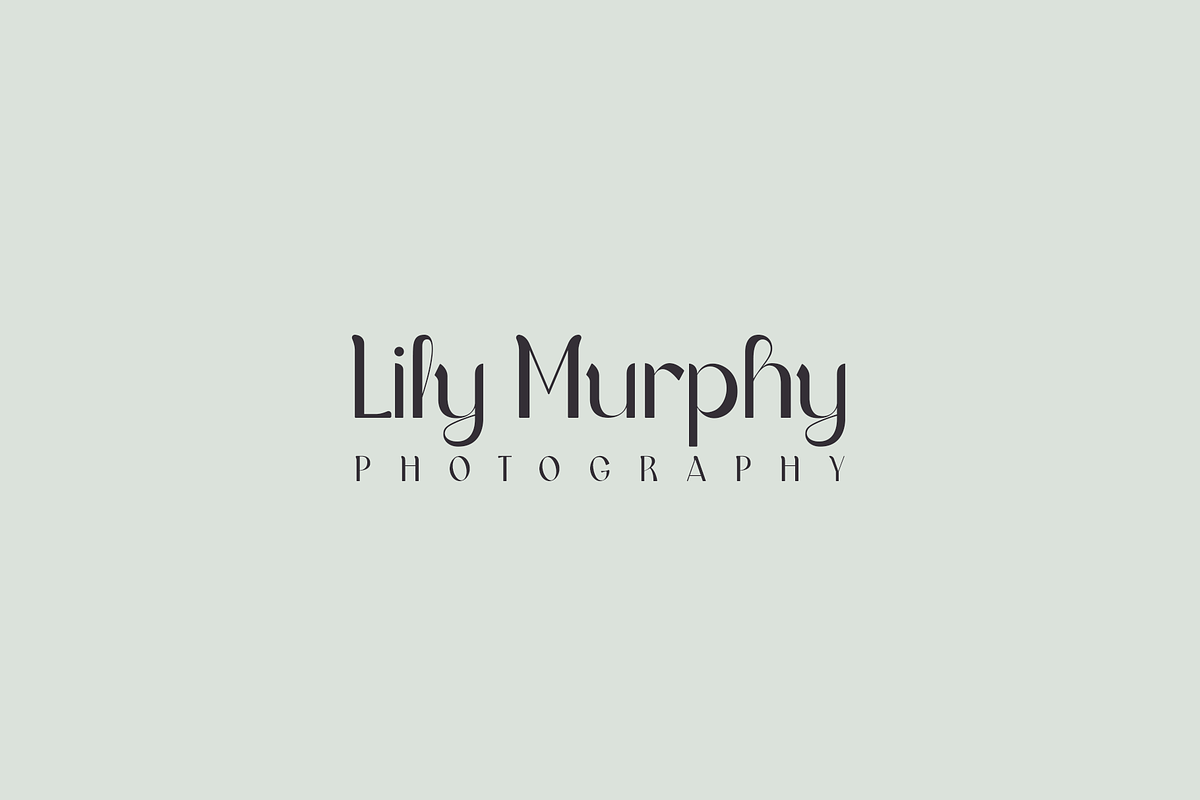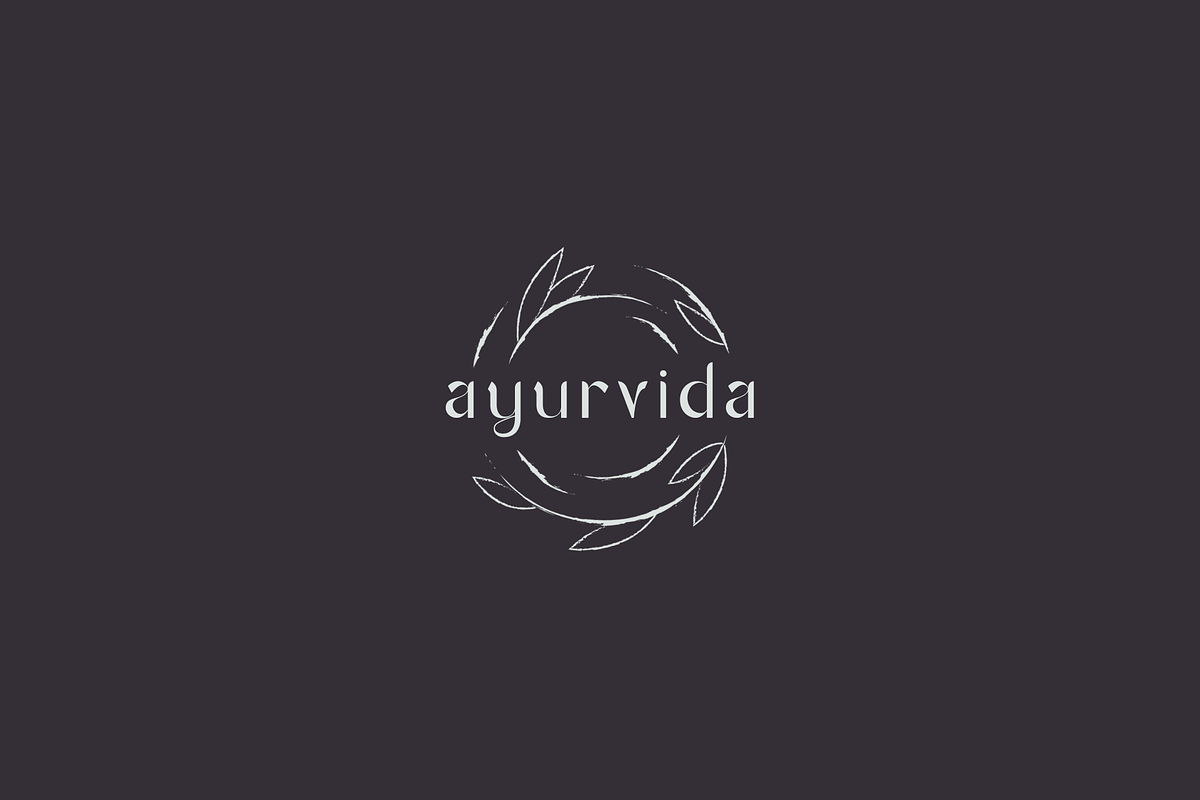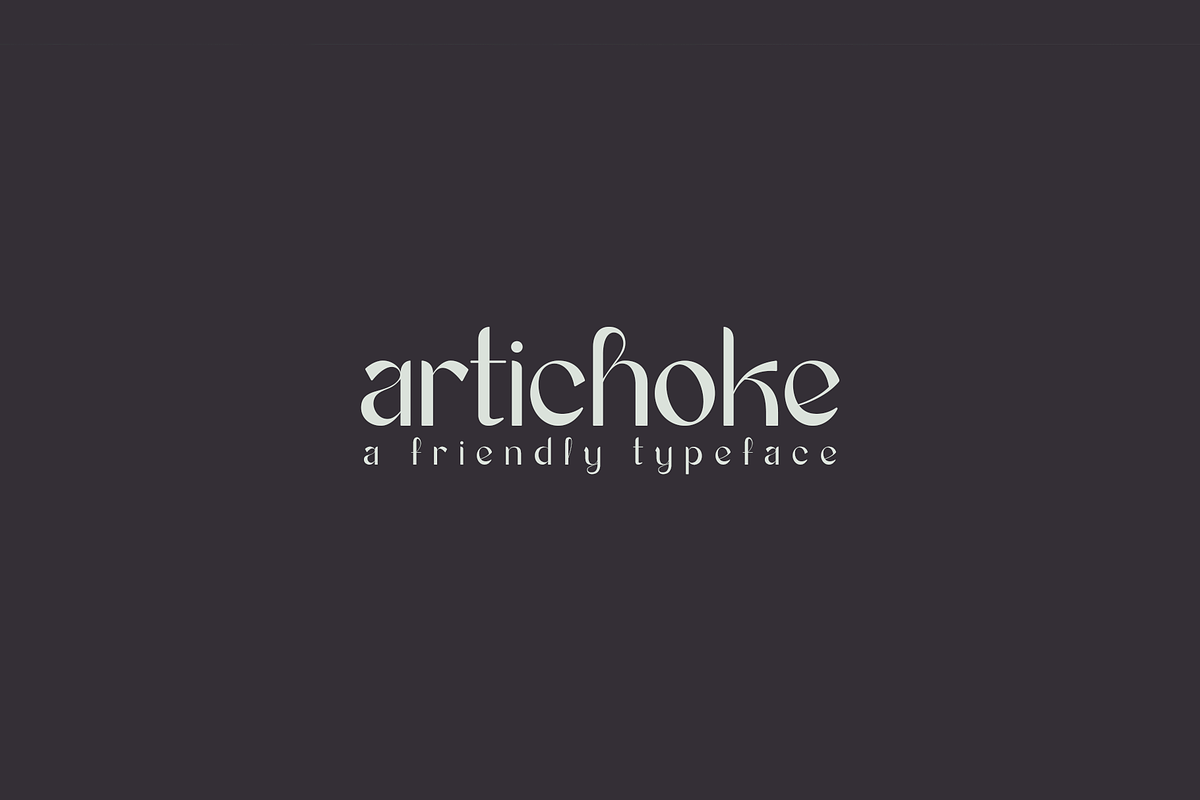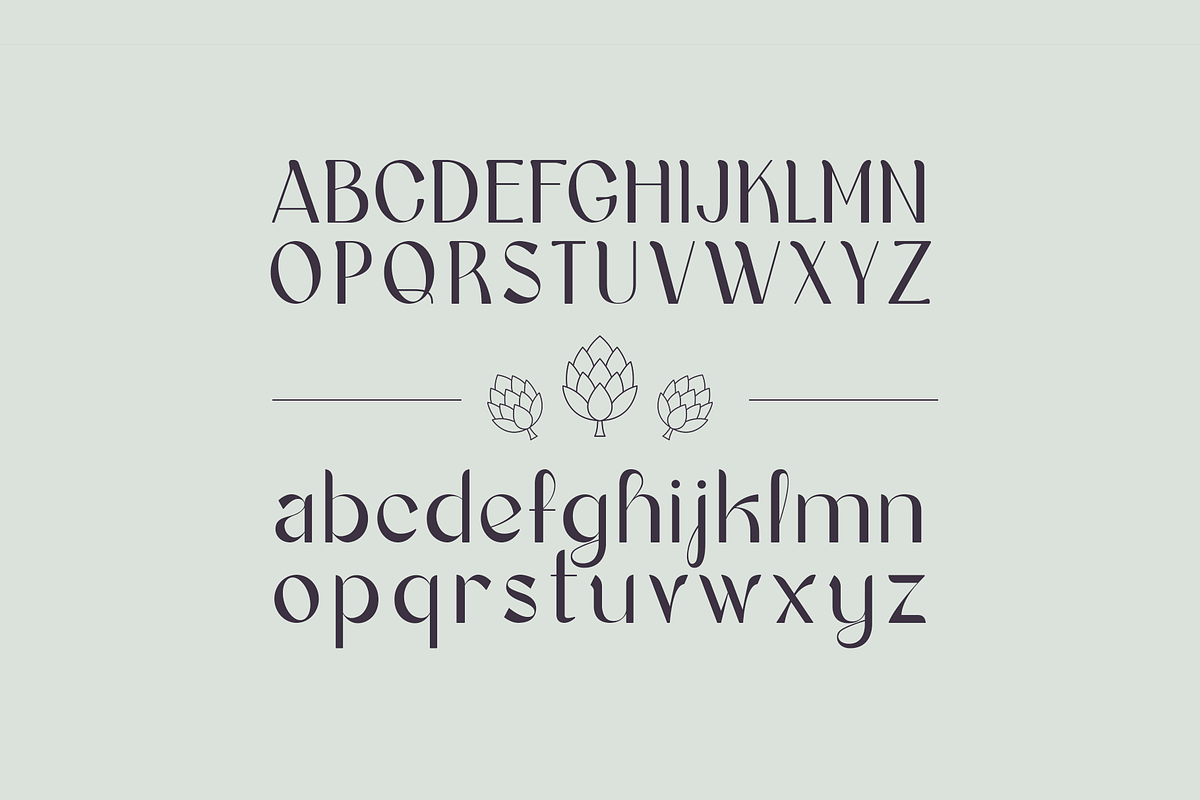
Artichoke - A friendly typeface
My first font! Always seeking to improve and update it, so feedback and suggestions are greatly appreciated :)
Ligatures and more alternates coming soon !